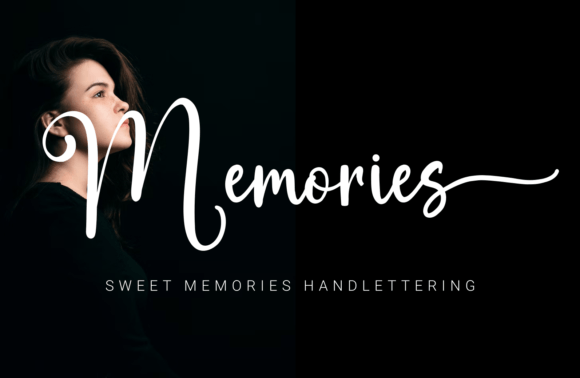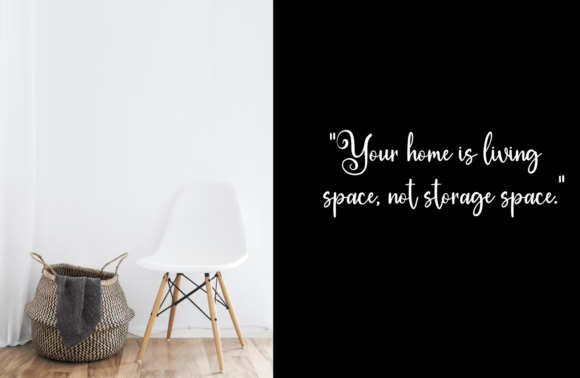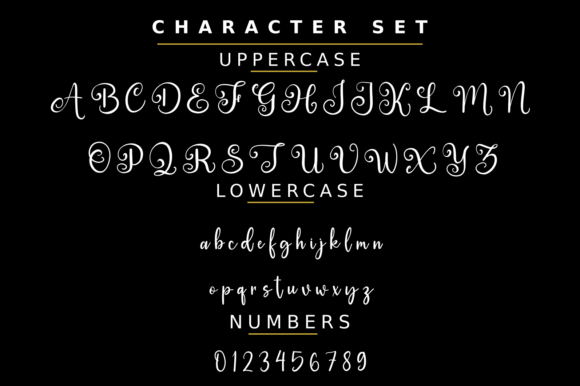
About Memories Font
“Memories” is a font that embodies elegance and sophistication through its contemporary script style. Inspired by timeless classic calligraphy, this font combines impeccable form with a balanced and varied design. Its not-too-thin and not-too-thick strokes create a harmonious visual experience, making it an ideal choice to enhance the beauty of your projects. Whether you’re working on invitations, branding, packaging, signage, or any other creative endeavor, “Memories” elevates the visual appeal of your designs with its graceful charm.
The elegant and refined qualities of “Memories” make it perfect for designs that require a touch of timeless beauty and sophistication. Its well-crafted letterforms and smooth curves create a sense of grace, making it suitable for projects that demand a sense of elegance and class. Whether used in logos, headings, or wedding invitations, this font adds a touch of luxury, ensuring that your designs exude a sense of high-quality craftsmanship.
In branding, “Memories” adds a touch of sophistication and exclusivity to the business. Its contemporary script style adds a sense of professionalism and creativity, making it suitable for upscale brands and businesses that want to convey a sense of premium quality. Whether used in logos, business cards, or promotional materials, this font enhances the brand’s visual identity, leaving a lasting impression on clients and customers.
For invitations and event stationery, “Memories” adds a touch of romance and refinement. Its flowing script and impeccable form create a sense of charm and elegance, making it perfect for wedding invitations, formal events, or upscale gatherings. Whether used for invitation cards, menus, or place cards, this font enhances the overall sophistication of the event, making it a memorable and enchanting experience for attendees.
In packaging and product design, “Memories” elevates the overall aesthetics of products. Its elegant script style adds a touch of luxury to labels and packaging, making products appear more premium and desirable. Whether used for cosmetics, perfumes, or gourmet products, this font enhances the brand image, making the products stand out on the shelves and appeal to discerning consumers.
The availability of glyphs and swashes, thanks to the PUA encoding, enhances the font’s versatility. Designers can easily access a wide range of alternate characters and decorative elements, allowing for creative freedom and customization. These additional glyphs and swashes enable you to create unique and personalized designs, adding a bespoke touch to your projects and enhancing their individuality.
In summary, “Memories” is not just a font; it’s a statement of elegance and sophistication. Its contemporary script style, impeccable form, and PUA encoding make it a valuable asset for various creative projects. By incorporating “Memories” into your designs, you infuse them with a sense of timeless beauty and refinement, ensuring that your projects are not just visually appealing but also exude an aura of understated luxury and class.